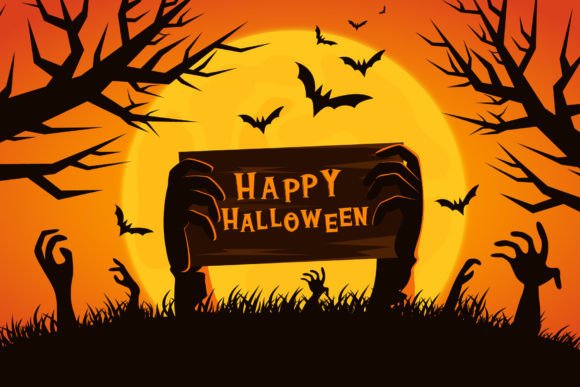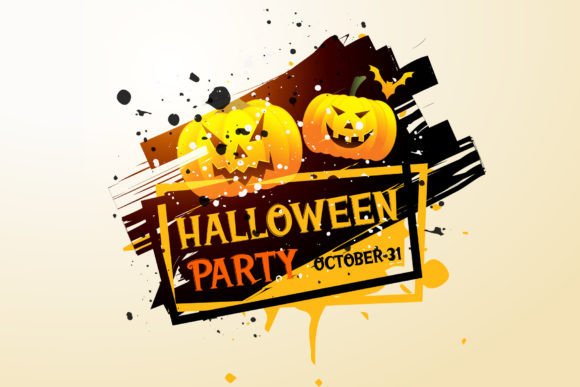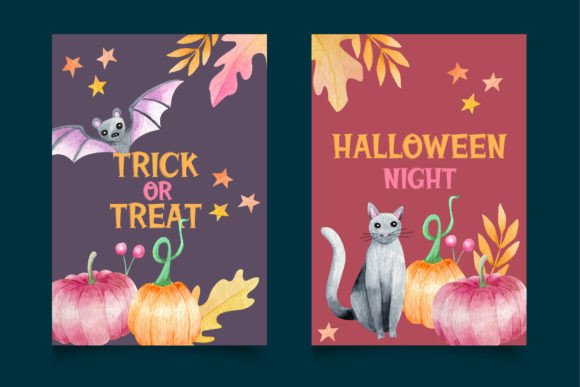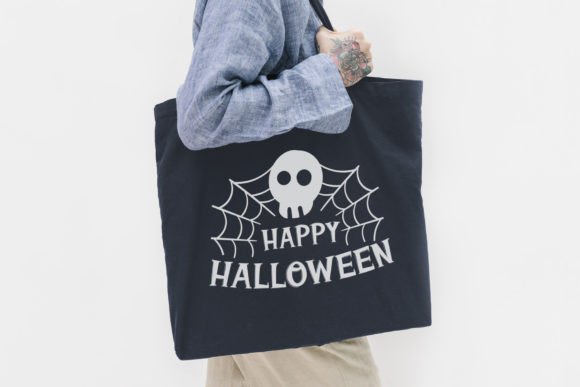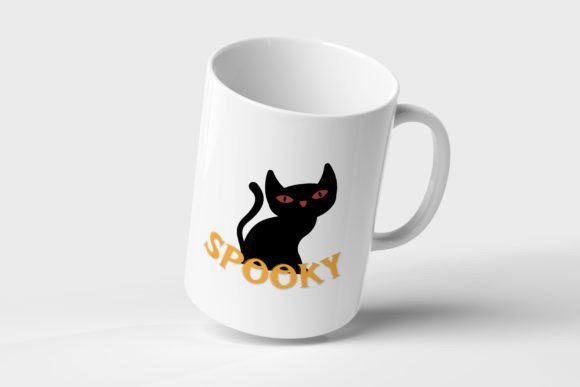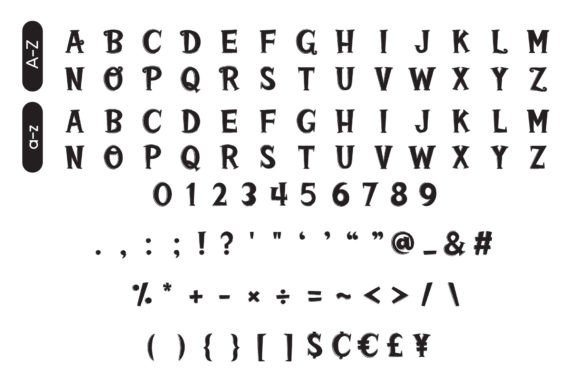
The Fox Vampire Font: A Spooky-ooky Delight for Designers
I’ll never forget the time I was working on a Halloween-themed project for a client, and I just couldn’t find the right font to capture the spooky-ooky vibe. The client wanted something fun, playful, and a little bit eerie, but I was coming up blank. That’s when I stumbled upon the Fox Vampire font, and let me tell you, it was love at first sight! 💕
In this article, we’ll dive into the world of Fox Vampire, exploring its features, uses, and some practical tips on how to make the most of this beautiful display font.
So, what makes Fox Vampire so special? Here are a few things that I absolutely love about this font:
- ✨ Unique character set: Fox Vampire has a wide range of characters, including some really cool glyphs and stylistic alternates that can add a lot of personality to your designs.
- ✅ Ease of use: This font is super easy to use, even for beginners. It’s perfect for designers who want to create stunning visuals without spending hours figuring out complicated font features.
- 🎃 Halloween and children’s themes: Fox Vampire is perfect for Halloween and children’s themes, but it’s also versatile enough to be used for a wide range of other designs, from logos to posters.
Of course, no font is perfect, and Fox Vampire does have a few quirks:
- 🤔 Limited suitability for body text: While Fox Vampire is amazing for display text, it’s not the best choice for body text. The font is quite ornate, which can make it difficult to read in large blocks.
According to the font’s creators, Fox Vampire was inspired by the magic and mystery of the night. The designers wanted to create a font that captured the essence of Halloween and the supernatural, while still being fun and playful.
Whether or not that’s true, one thing is certain – Fox Vampire is a truly unique and captivating font that’s sure to add some extra sparkle to your designs.
| Is Fox Vampire suitable for body text? | While Fox Vampire is amazing for display text, it’s not the best choice for body text. The font is quite ornate, which can make it difficult to read in large blocks. |